In progress
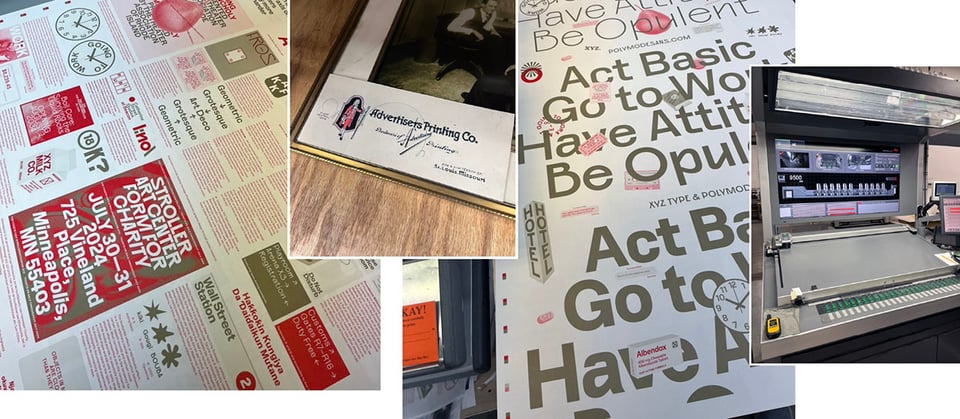
Thursday was the press check for the Polymode specimen at Advertisers Printing here in Saint Louis. It wasn’t a complex job, but it was good to go and bump a couple of spots where the metallic copper (Pantone 871) wasn’t holding the 10% tint on the 70# Lynx paper as well as we thought it would. Folding for this one will be the most challenging part of the job, so I’m going back for that check, too.
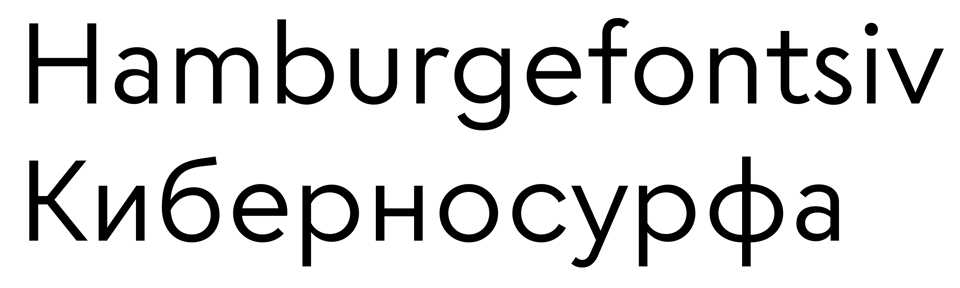
In between working on a large project (it started last fall and goes to the end of this year) that we can’t yet talk about, Zrinka has been working to see what adding Cyrillic to some of the retail library will look like. Above is the start of Escalator Cyrillic. More to come on that front.
Admired type releases
Friend and reader Eve Wallack suggested putting in our typefaces or typefaces from other folks we like, so here are two of the latter:
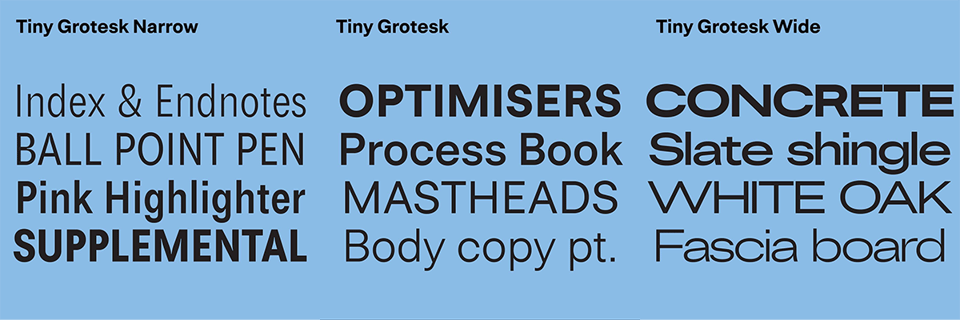
Robin Meintjes just wrote two case studies for us (HashiCorp, Brand New), but her real skill is drawing type. Her Tiny Grotesk launched this week and is worth checking out.
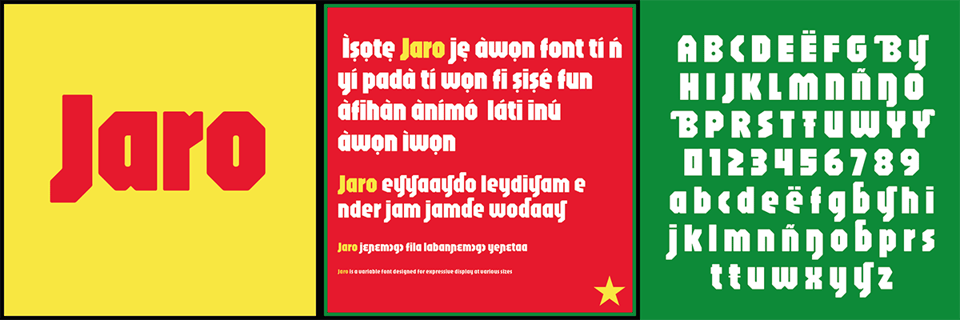
Also, Agyei Archer released Jaro, a really lovely display variable font with optical sizes that has Pan-African Latin support. More here by Agyei on the project and a good Instagram follow.